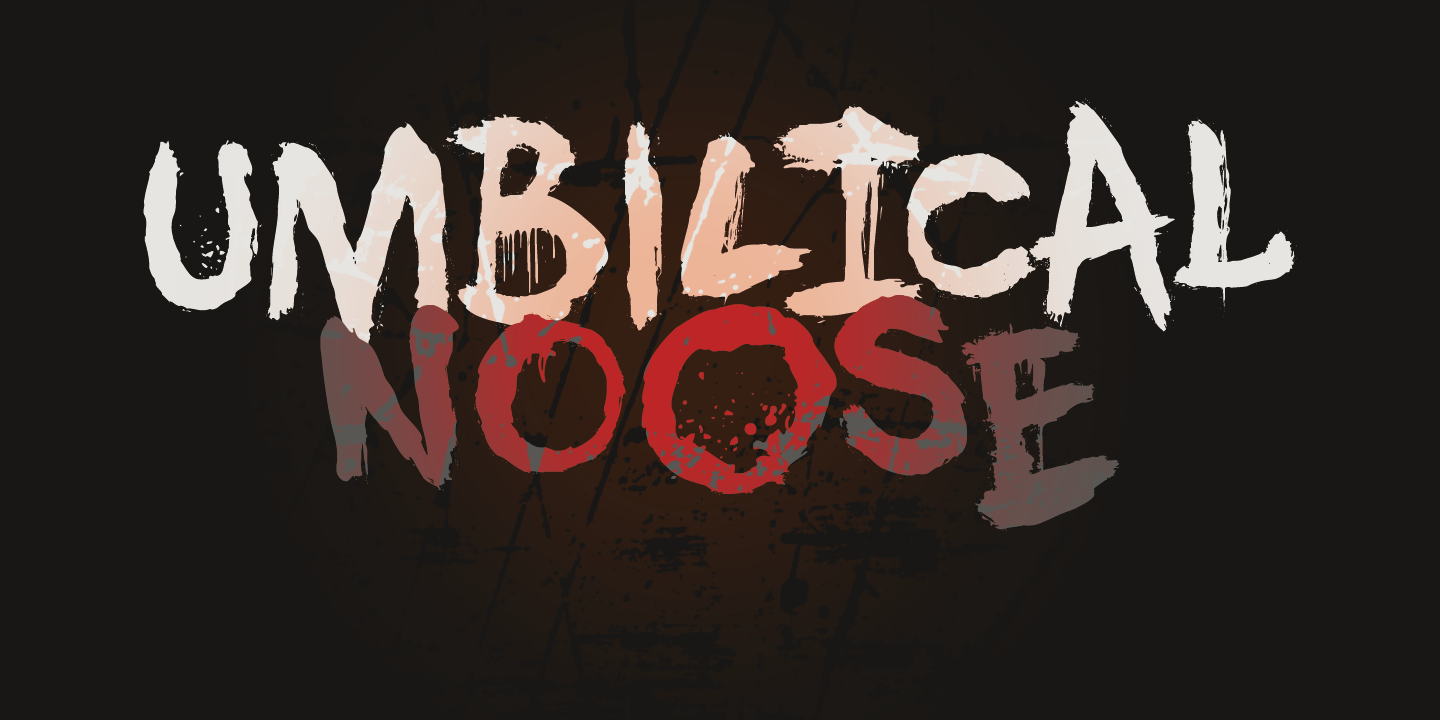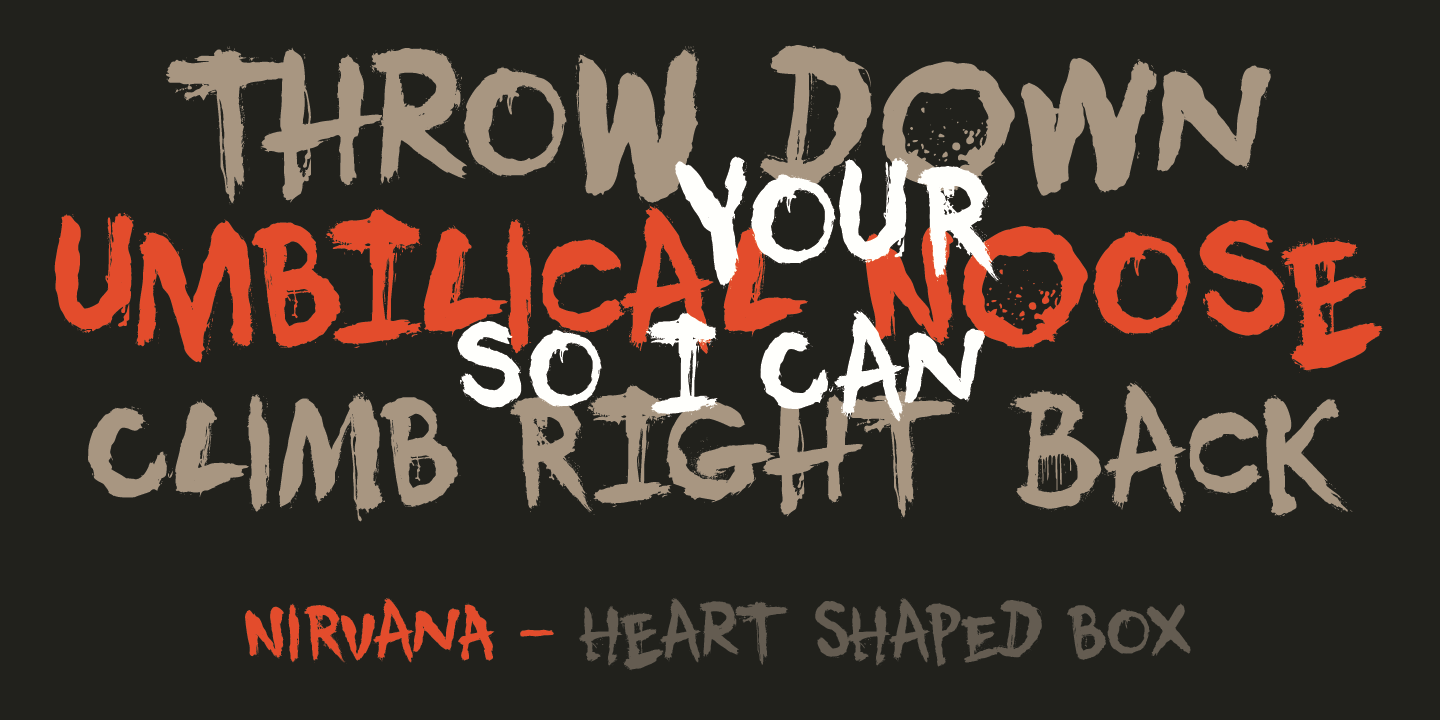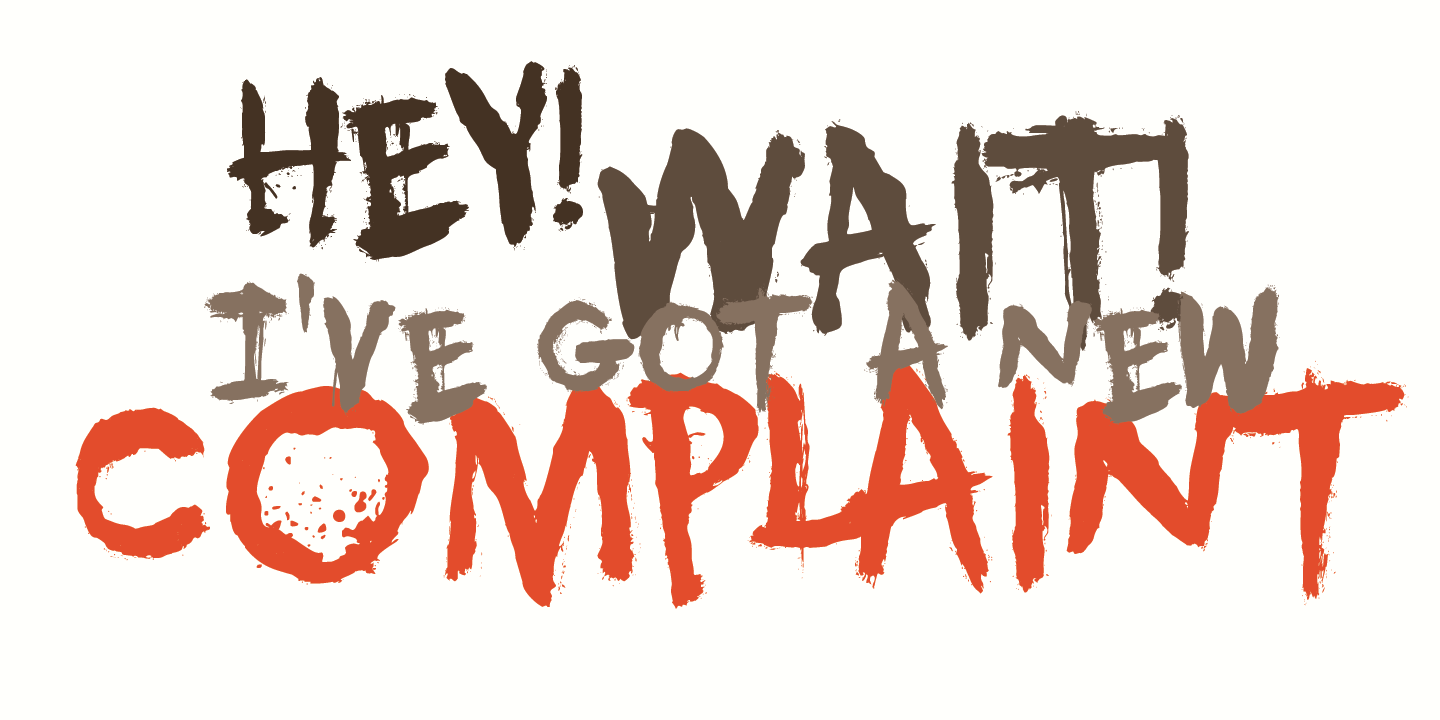
Umbilical Noose
Buy NowUmbilical Noose is a rather scary typeface. It is quite similar to an older font of mine: Nyctophobia. The name comes from a Nirvana song called Heart Shaped Box, in which Kurt Cobain sings: 'throw down your umbilical noose, so I can climb right back?. I have always liked that phrase a lot.
Umbilical Noose is an all caps font, but upper and lower case are different and you can easily interchange the glyphs.